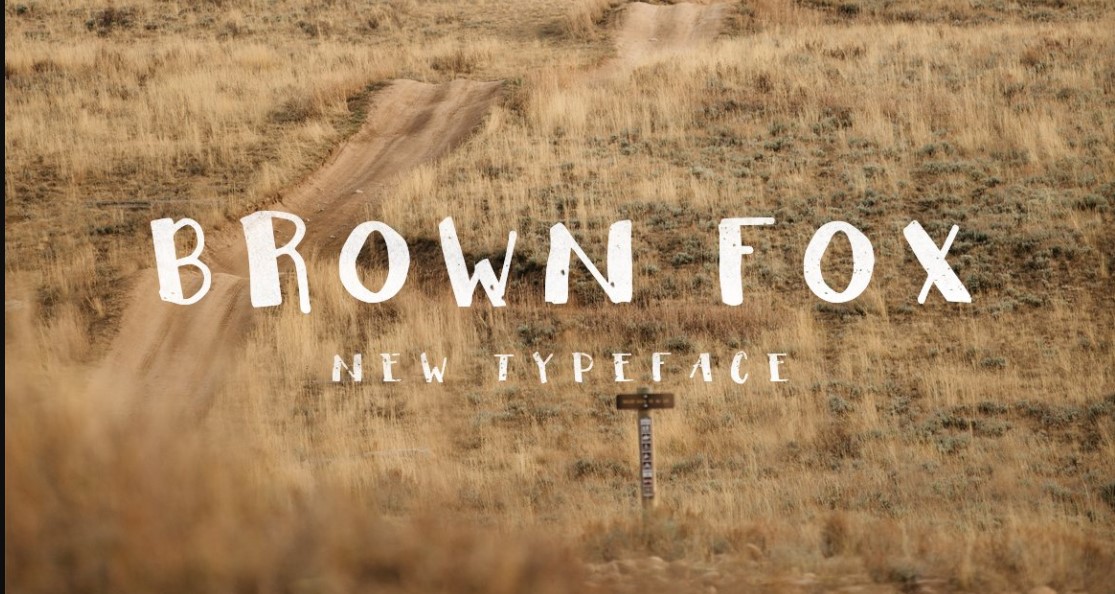
Brown Fox Font
Brown Fox Font is applied in adobe. This typeface is usually used within the android mobiles and moreover it is one of the first-class fonts available.
The ones are hand-drawn fonts that in reality supply off a vidiz pro typeface in your obligations. It is also one of the maximum used fonts inside the google fonts.
Style of Brown Fox Font Free